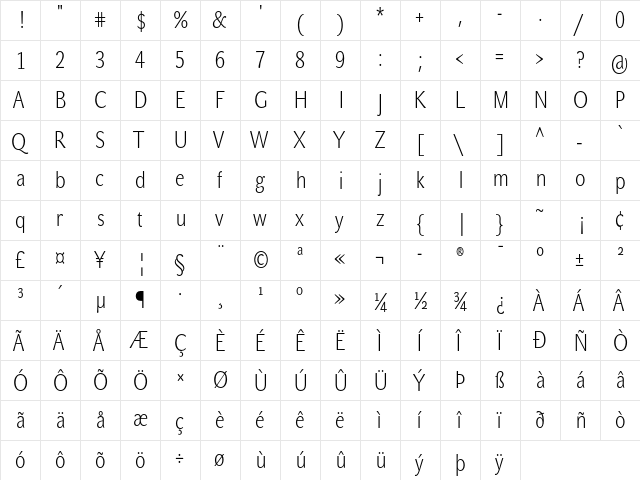
JohnSansCond White Pro Regular
Design Context for JohnSansCond White Pro Typeface
JohnSansCond White Pro offers clean, dependable letterforms without strong stylistic allegiance, making it a practical choice for designers who need flexibility. The condensed width makes it efficient for tight spaces without sacrificing legibility.